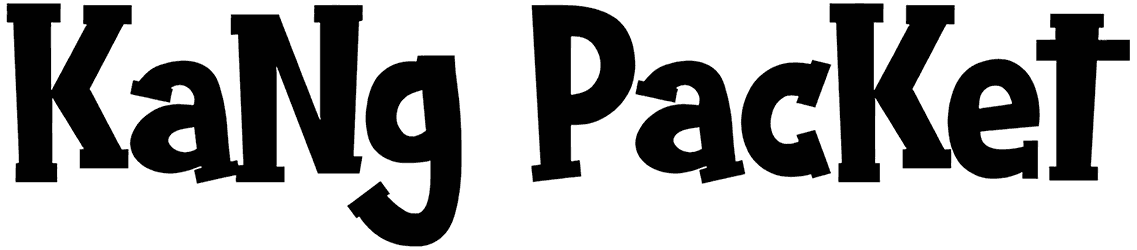
Kang Packet Font
Do you require a playful and bold appearance to design your contexts? Kang Packet, as a cartoon font, is a fun display for many subjects and makes a fancy vibe for happy designs. Show your projects, such as kids’ books, school posters, covers, or similar things, with Kang Packet and reap a joyful vibe.